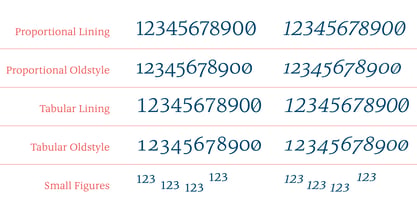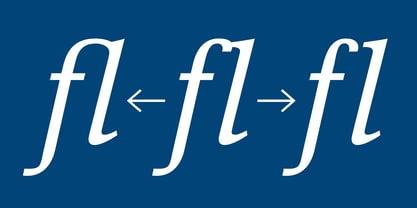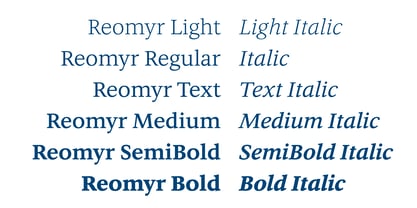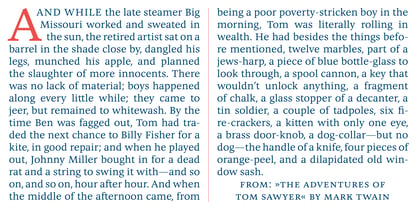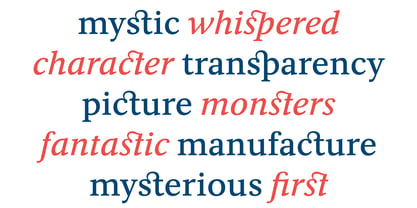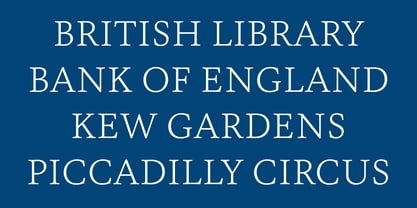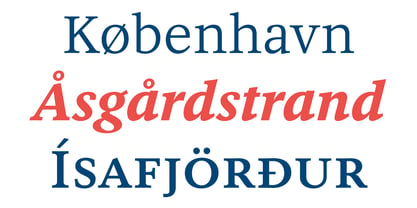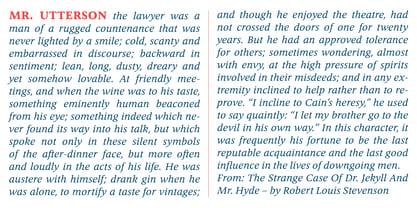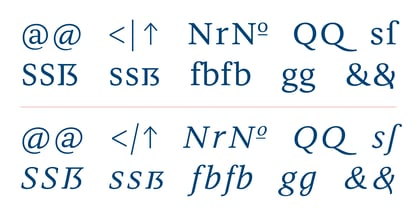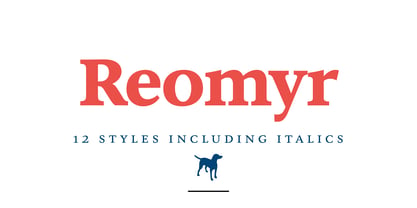
Reomyr
by Erwin Krump
The Reomyr Font Family was designed by Erwin Krump and published by Erwin Krump. Reomyr contains 12 styles and family package options. More about this family
The „Reomyr“-family is a contemporary Renaissance Antiqua with 12 weights from Light to Bold (including italics) and numerous OpenType features. There are 9 stylistics sets with alternative glyphs and several digit types to choose from. „Reomyr“ has been designed for a variety of applications such as book, magazine and newspaper typography and is suitable for the screen as well as being very readable in small degrees for extensive amounts of text. There are three types of ligatures available (standard ligatures - liga, ligatures with word fugue - ss.07 and conditional ligatures - dlig).
Designers: Erwin Krump
Foundry: Erwin Krump